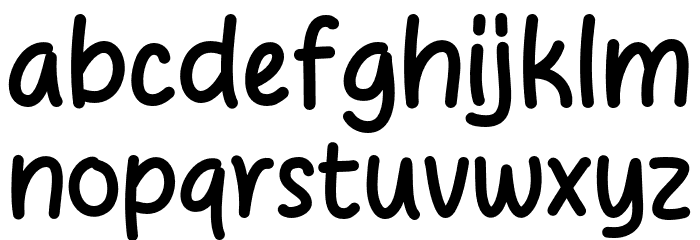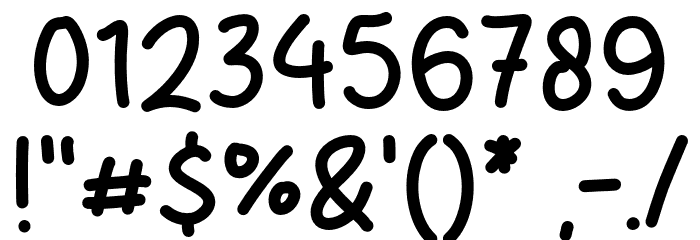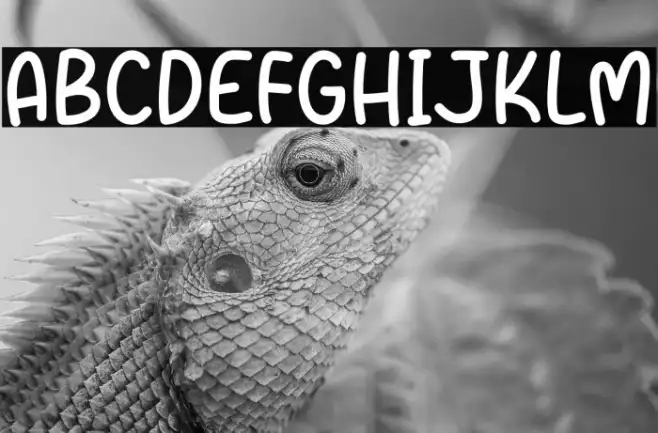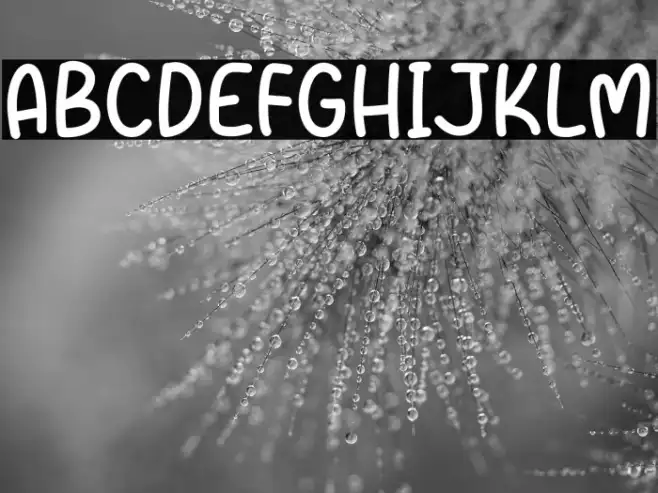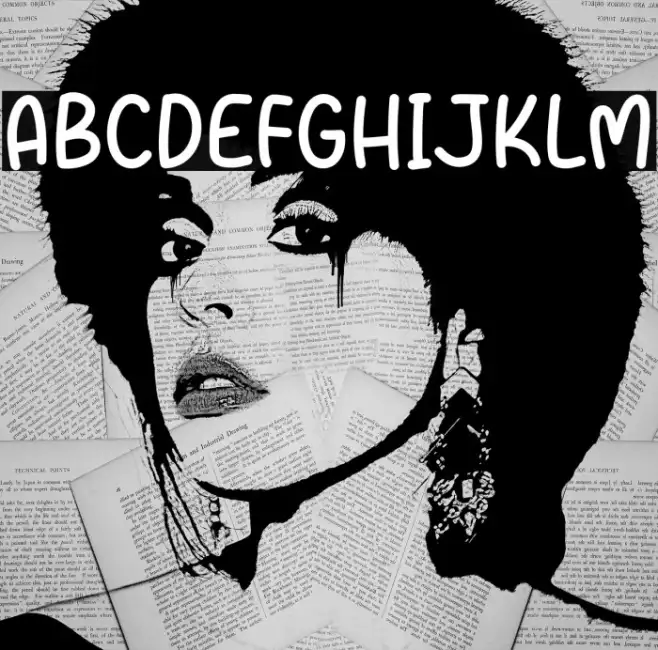
Micky Bros Font
This playful and whimsical font features rounded, bold characters with a hand-drawn appearance. The letters are slightly irregular, adding to the casual and friendly feel. The strokes are consistent in thickness, giving it a cohesive look. The font includes both uppercase and lowercase letters, numerals, and a variety of special characters. Its informal style makes it ideal for projects that require a fun and approachable aesthetic.
A playful, hand-drawn font with rounded, bold characters.
- Font: Micky Bros
- Proposed Projects: Ideal for children's books, playful branding, casual invitations, and fun social media graphics.
- Category: Handwritten
- Overall Style: Playful